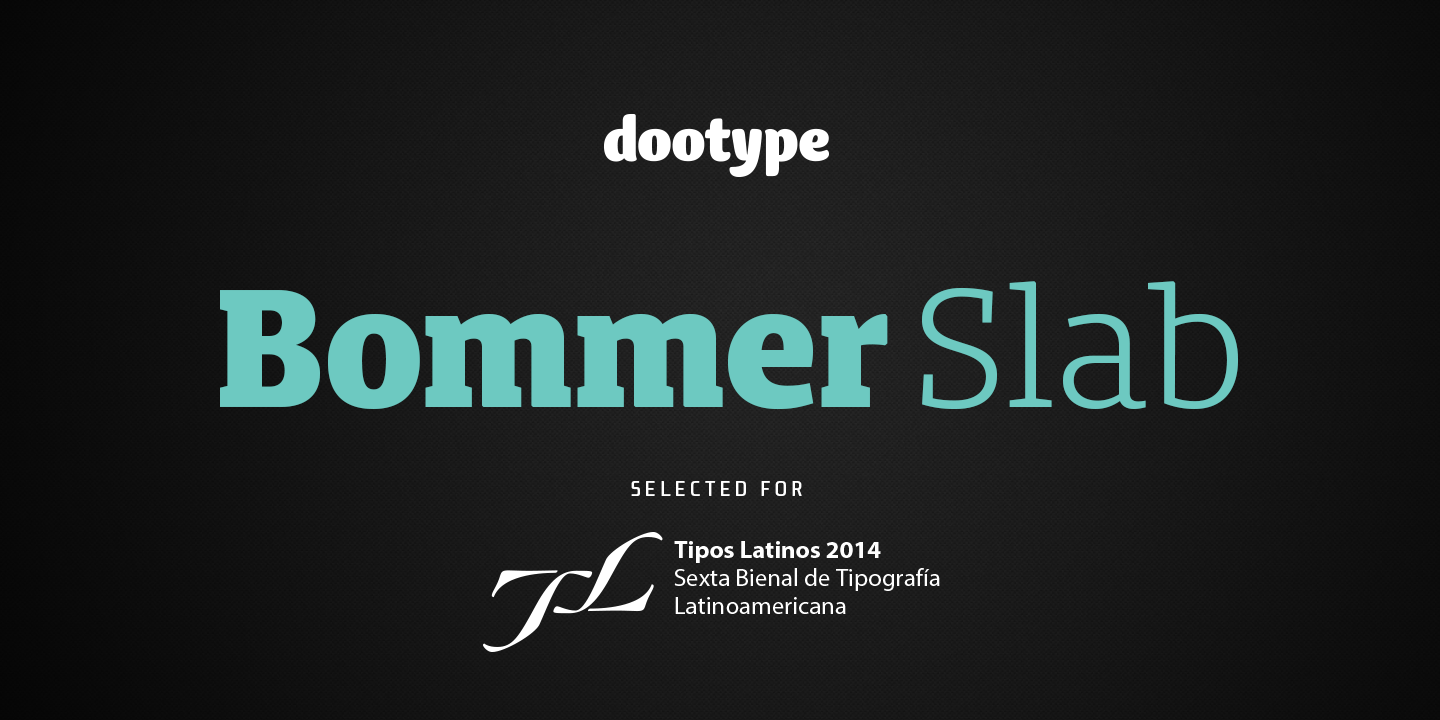
The Bommer Slab Font is an excellent choice for designs that demand a strong, contemporary, and highly impactful slab-serif aesthetic with a touch of modern craftsmanship. Imagine it gracing the headlines of a cutting-edge tech publication, adding a powerful visual presence to industrial branding, or bringing a robust, confident feel to corporate annual reports. It's also perfectly suited for impactful posters, architectural firm portfolios, data-driven infographics, and any project where you want to convey a sense of precision, stability, and a clear, commanding voice. Its often thick, geometric serifs and sturdy forms make it ideal for conveying confidence and a memorable statement.
What makes the Bommer Slab Font so exciting is its remarkable balance of strength and readability, making it a true workhorse for diverse applications. It frequently features solid, well-defined letterforms with prominent, unbracketed serifs that give it a distinctive and highly legible character, even in demanding environments. This font has a confident and powerful personality that can instantly elevate your design, making it feel both established and remarkably contemporary. It’s designed to command attention and project an image of unwavering reliability, ensuring your message is not just seen, but understood with significant impact.
The Bommer Slab Font family typically includes a comprehensive range of weights, from a lighter, more delicate cut to an exceptionally heavy or black weight, providing extensive options for visual impact and hierarchy. It often supports a broad character set for multilingual use and sometimes includes alternative glyphs that further enhance its unique aesthetic. These variations empower designers to create a refined visual hierarchy and explore diverse aesthetic possibilities, ensuring the Bommer Slab Font Free Download can adapt to a wide array of projects while maintaining its signature, robust charm.